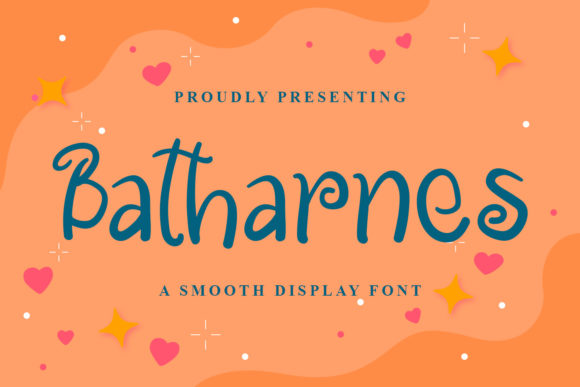
Feast your eyes on Batharnes, the display font that exudes charm, playfulness, and a dash of whimsy. This captivating creation from densudesign is designed to infuse your designs with an irresistible dose of joyful energy. Picture this: your words, adorned with the delightful curves, sharp edges, and energetic spirit of Batharnes, dancing across the screen, captivating your audience with their vibrant personality.
Journey into a world of endless creative possibilities, where Batharnes becomes your trusted companion. With its playful nature, it's the perfect font for adding a touch of lightheartedness to your UI designs. Let your imagination run wild as you explore a myriad of colors, shapes, and compositions, knowing that Batharnes will elevate your designs to new heights of visual appeal.
But Batharnes isn't just a pretty face; it's also incredibly versatile, adapting seamlessly to a wide range of projects. Whether you're crafting eye-catching logos, engaging social media posts, or personalized invitations, Batharnes effortlessly adds a touch of charm and individuality to your creations. Its versatility knows no bounds, making it the perfect choice for designers of all skill levels.
With Batharnes as your creative ally, you're not just creating designs; you're crafting experiences. Your audience will be drawn in by its cheerful disposition, feeling a sense of delight and playfulness as they interact with your creations. Batharnes transforms ordinary words into vibrant expressions of joy, leaving a lasting impression on all who encounter it.
So, embrace the magic of Batharnes and embark on a creative adventure where your designs come alive with personality. Let your imagination soar as you witness the transformative power of this remarkable font. Experience the joy of creating designs that resonate with your audience, designs that spark conversations and leave an indelible mark on the digital landscape.